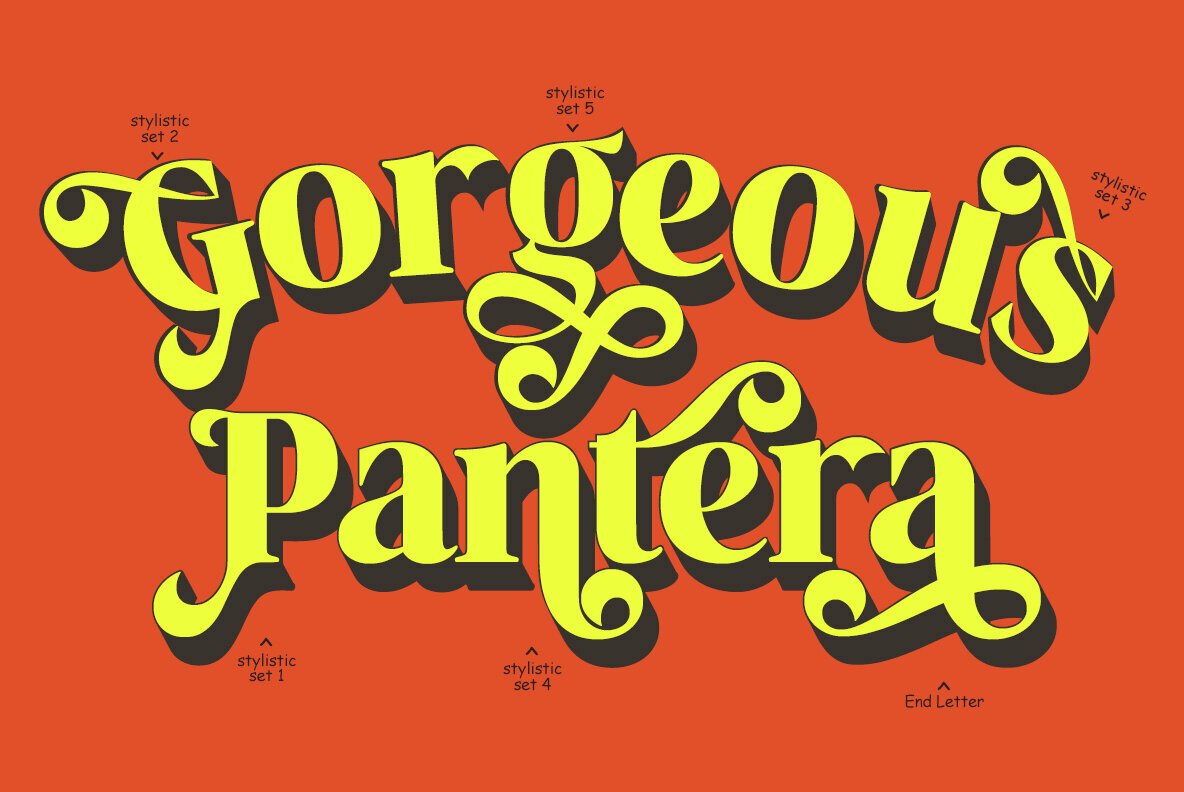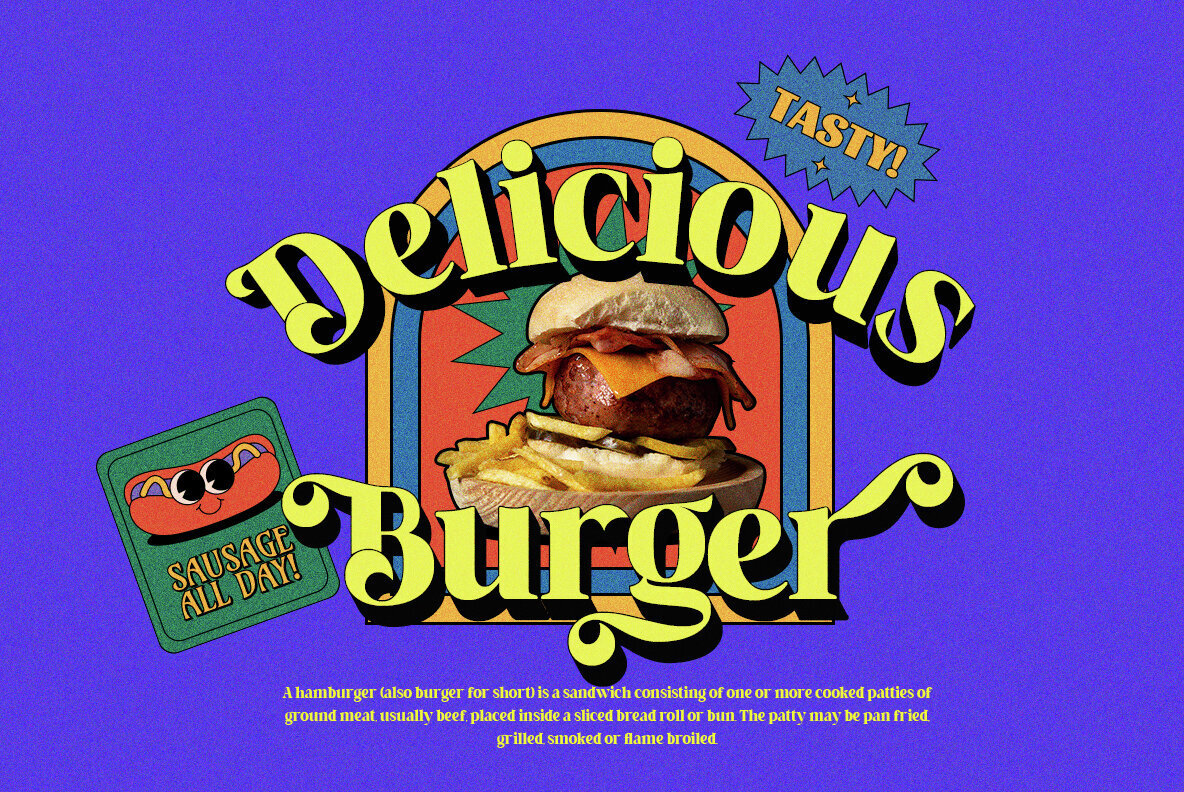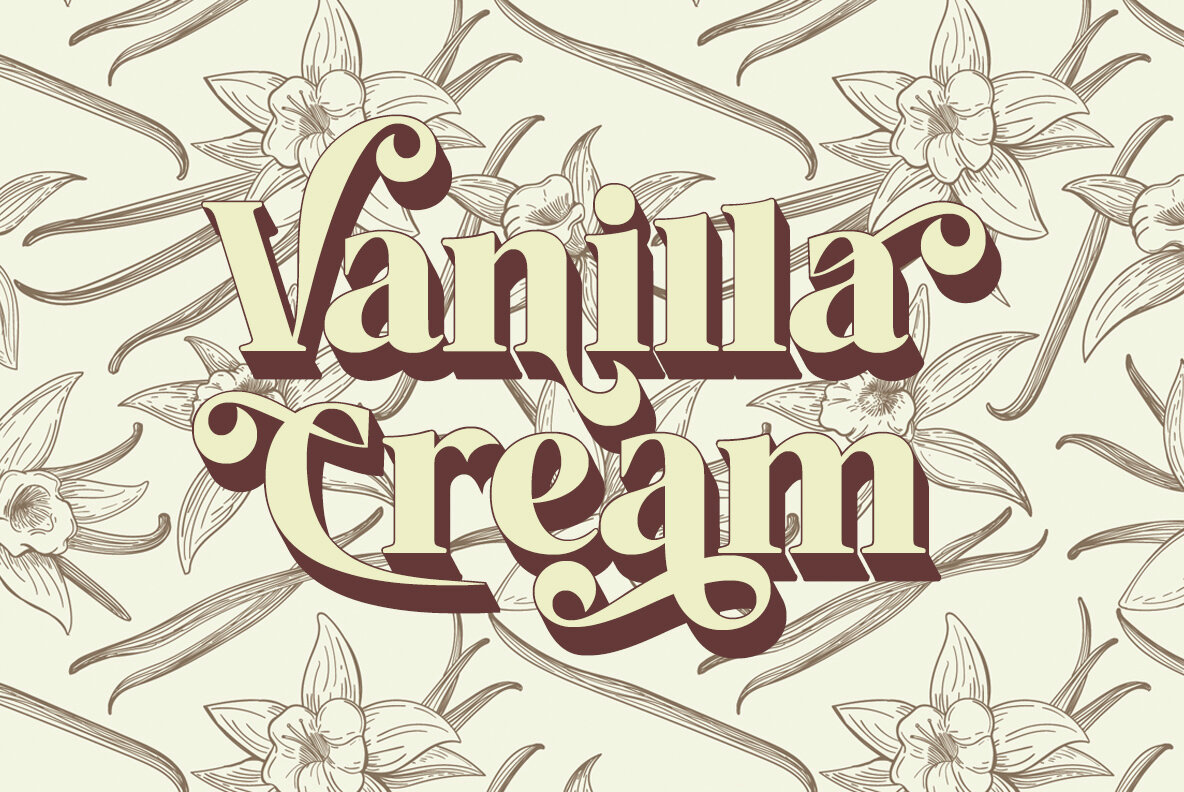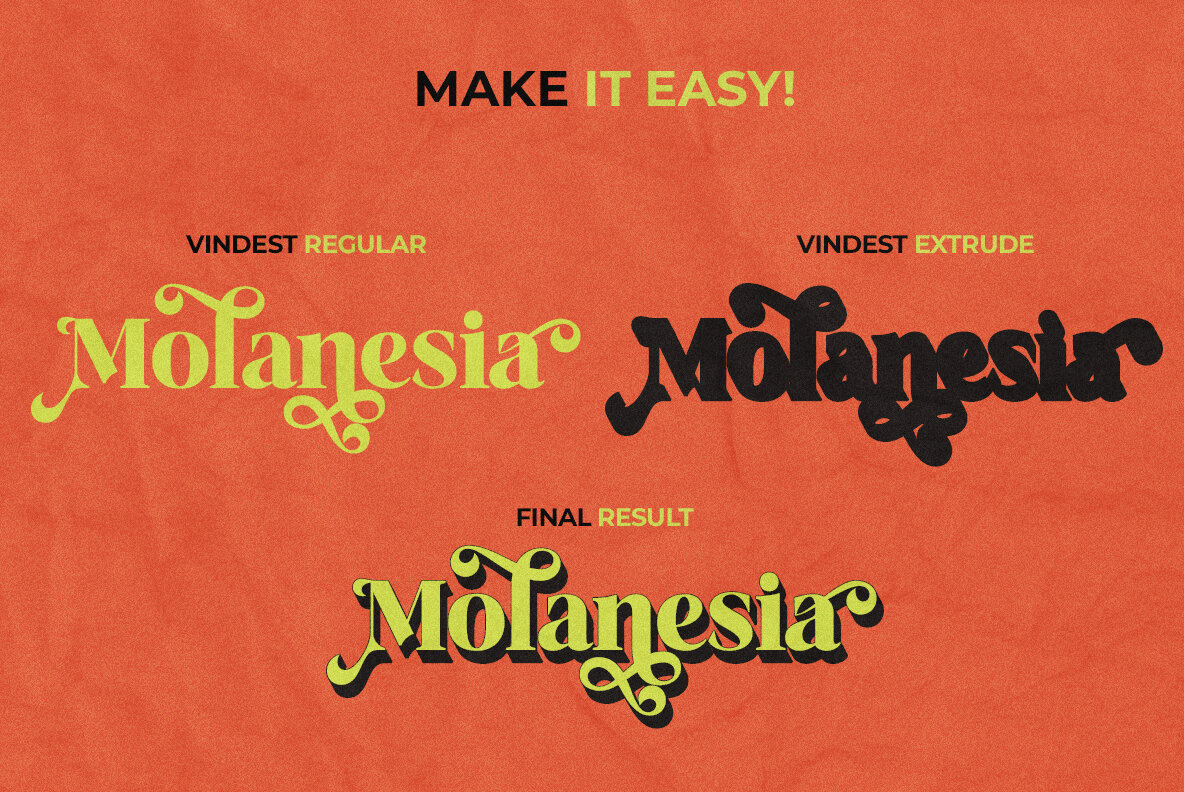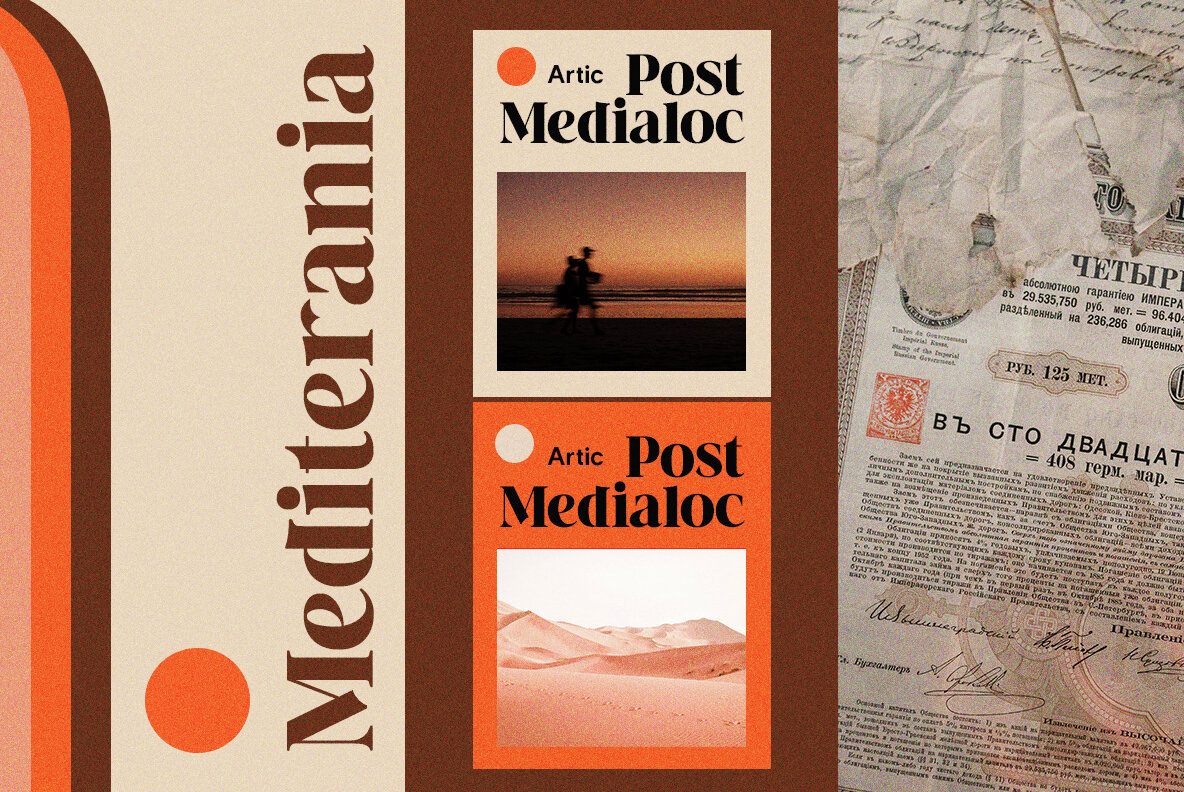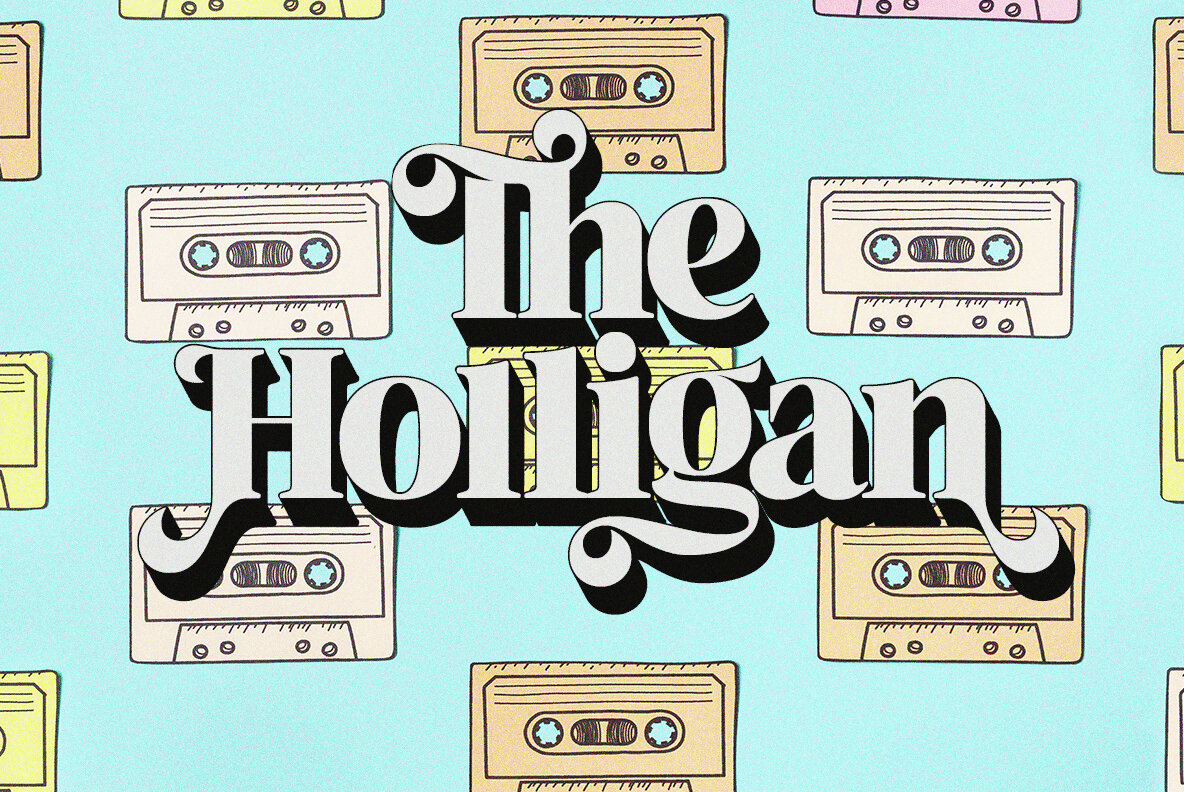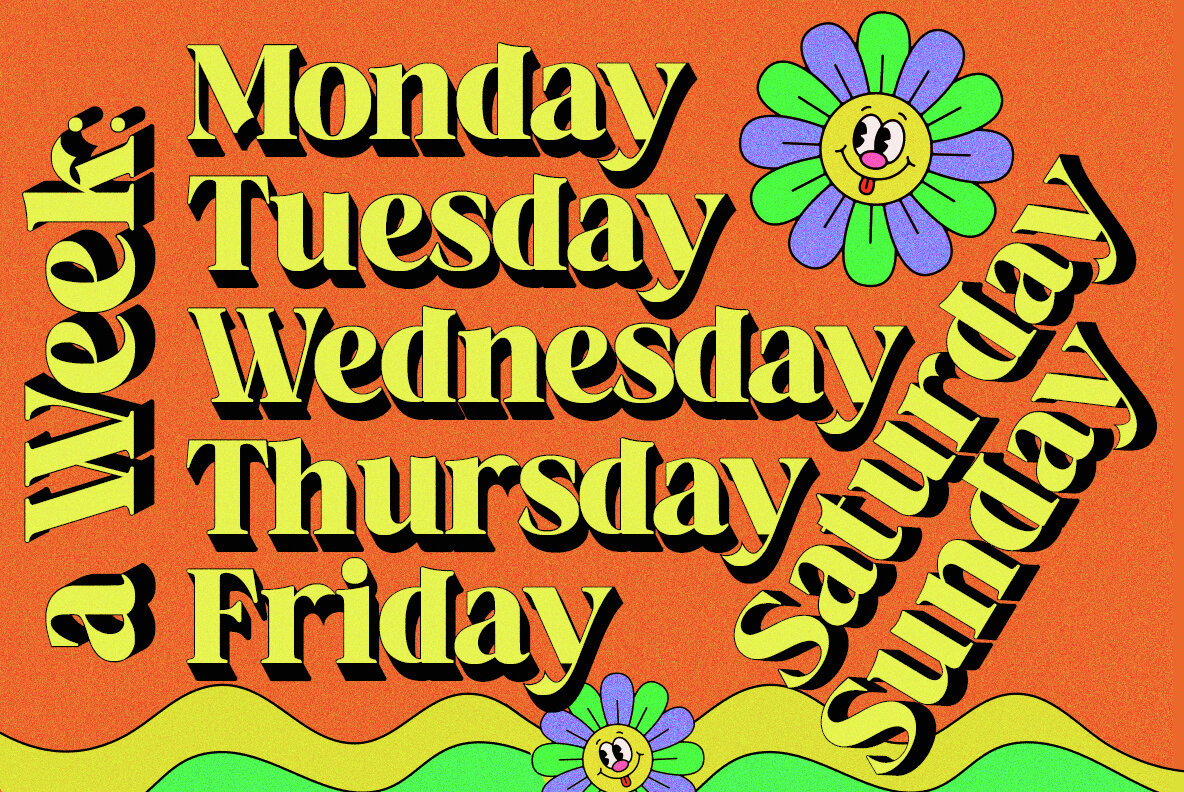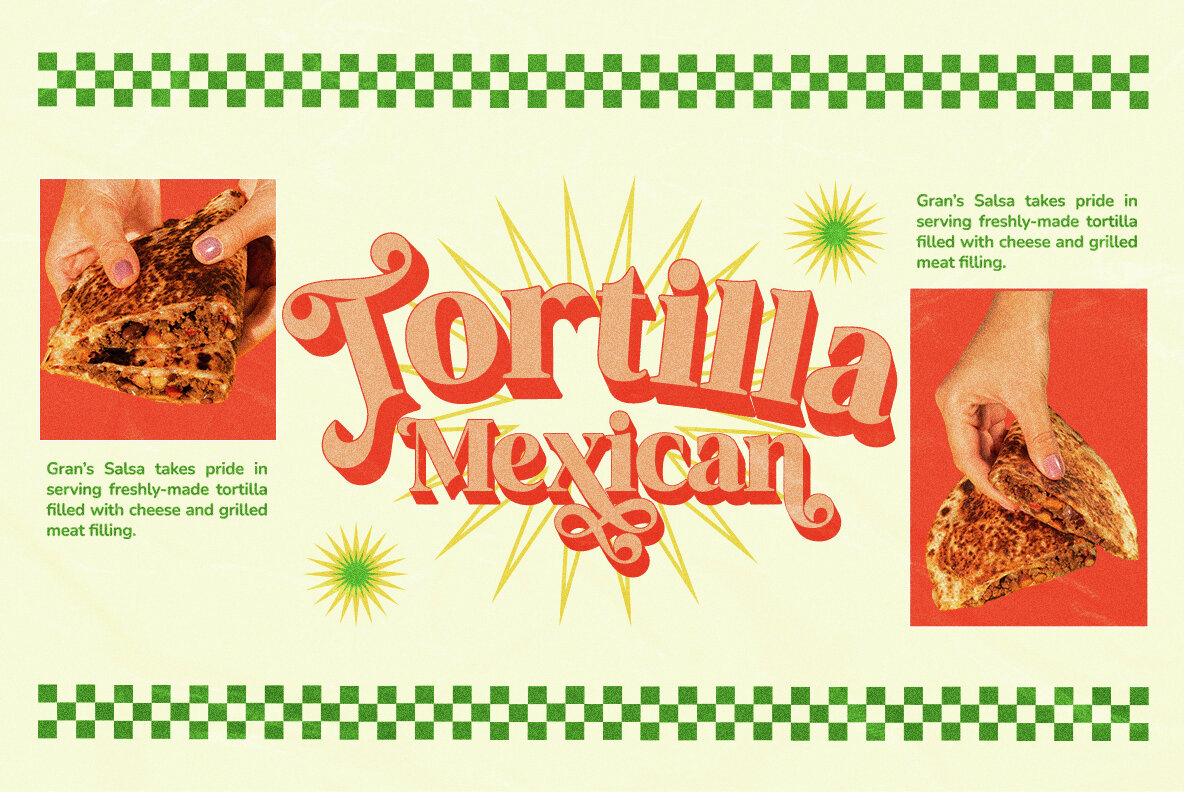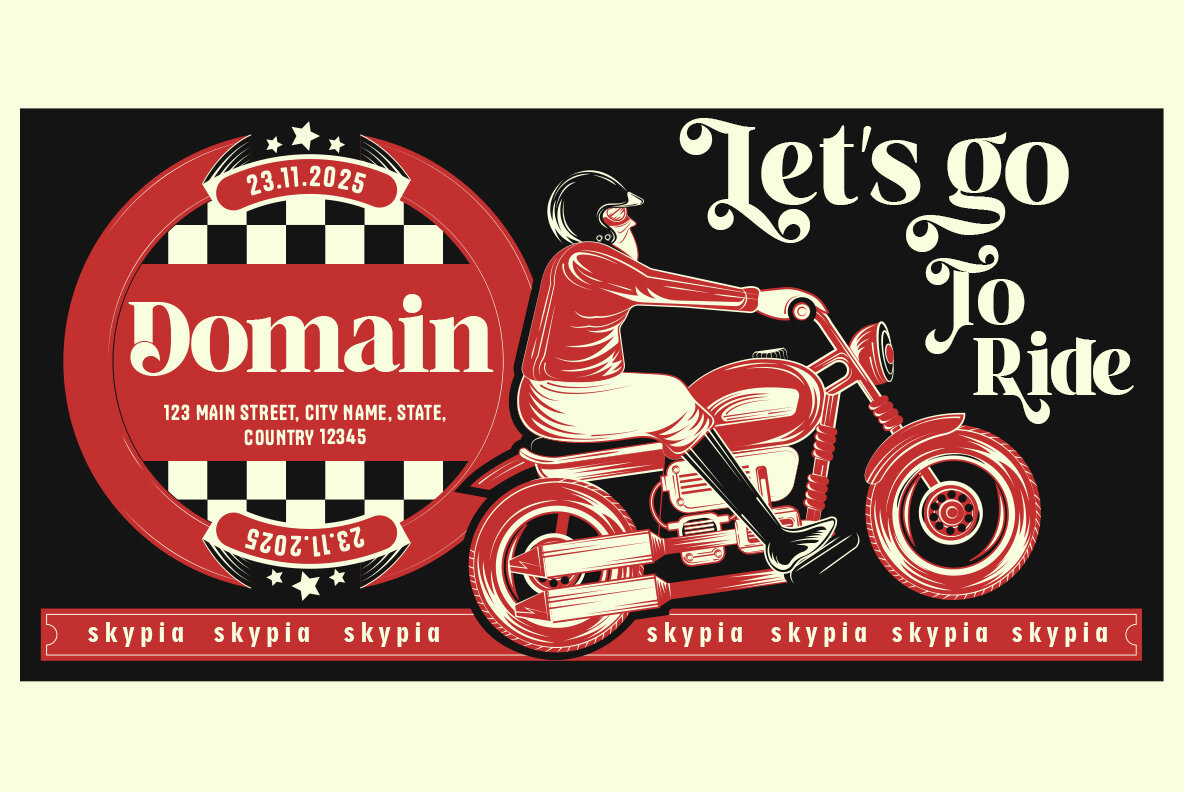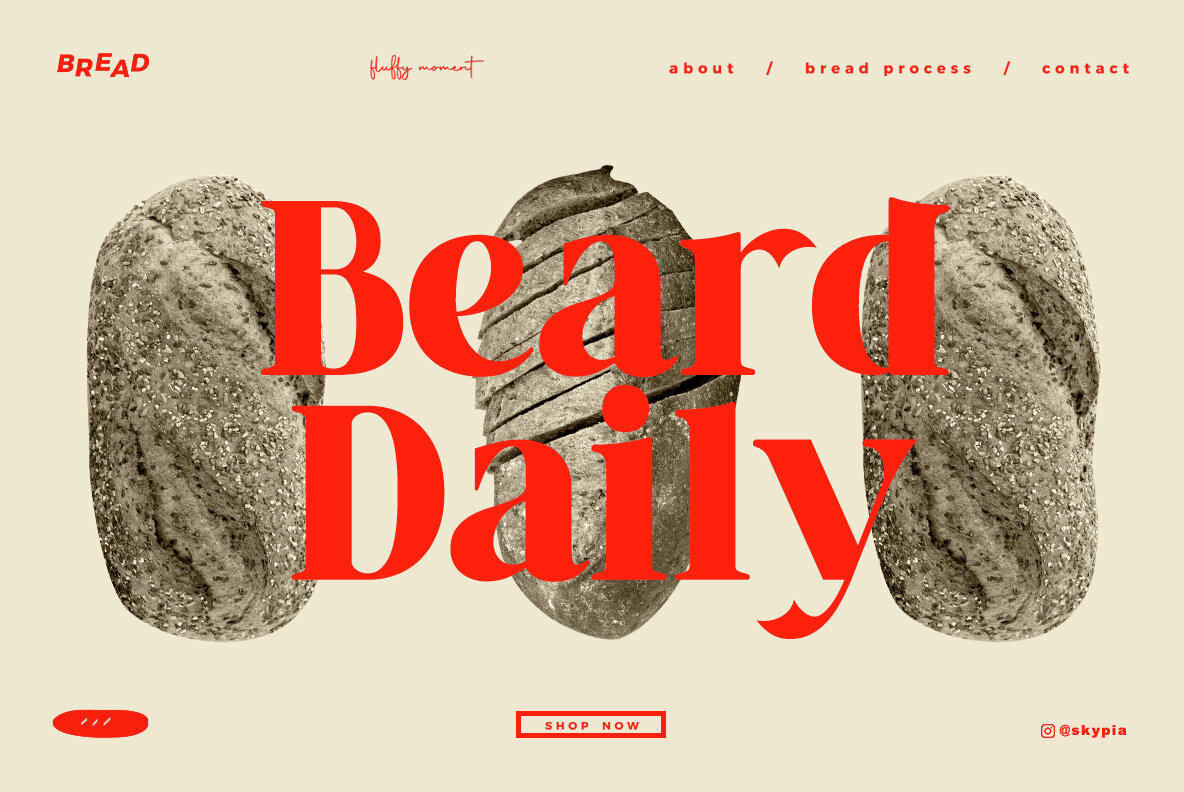
The Vindest 80s Font
The Vindest is a bold retro font that offers a rich selection of alternate glyphs, making it an ideal choice for vintage and groovy designs. Perfectly tailored for use in various creative projects, The Vindest is versatile enough for logos, covers, posters, quotes, product packaging, merchandise, social media, and more. Let your creativity flow with this dynamic typeface!The Vindest: Bold Retro Font with Alternates